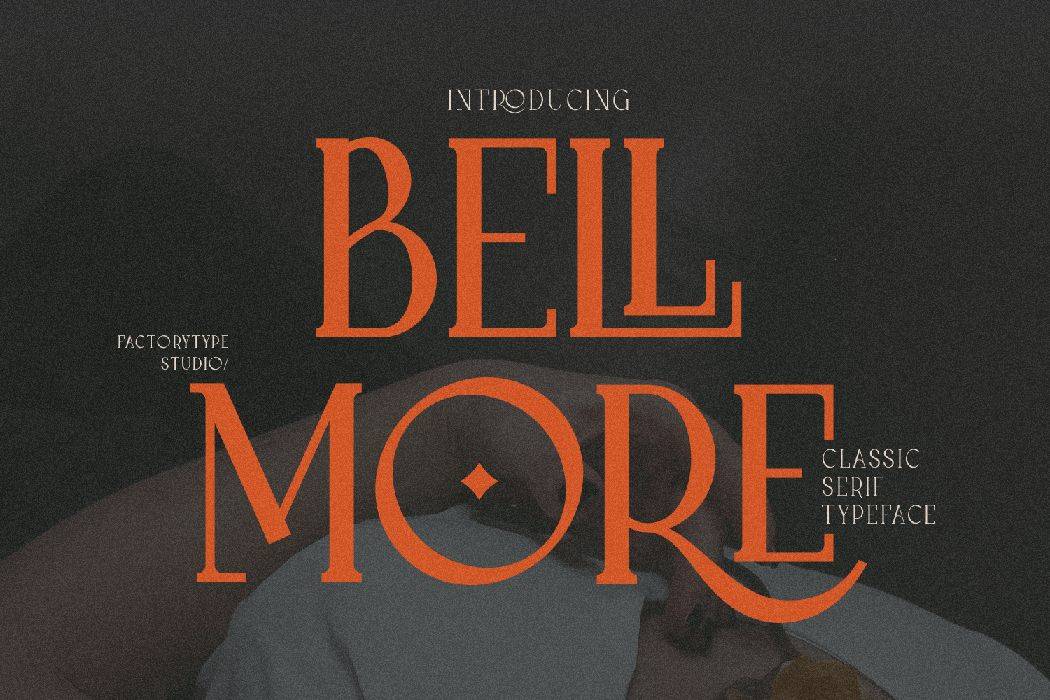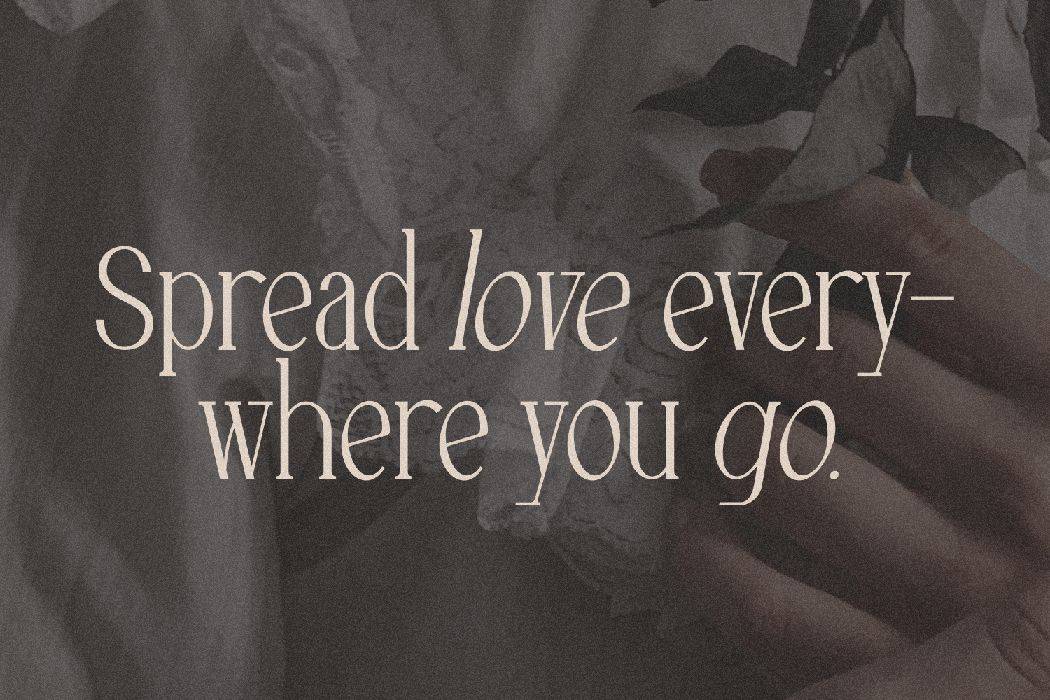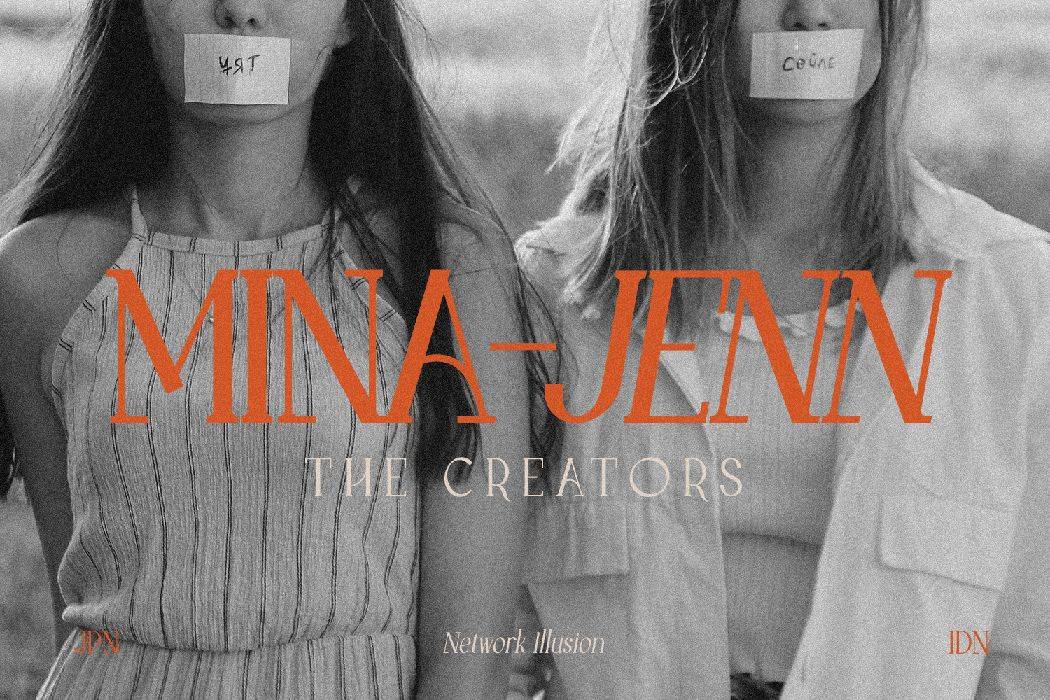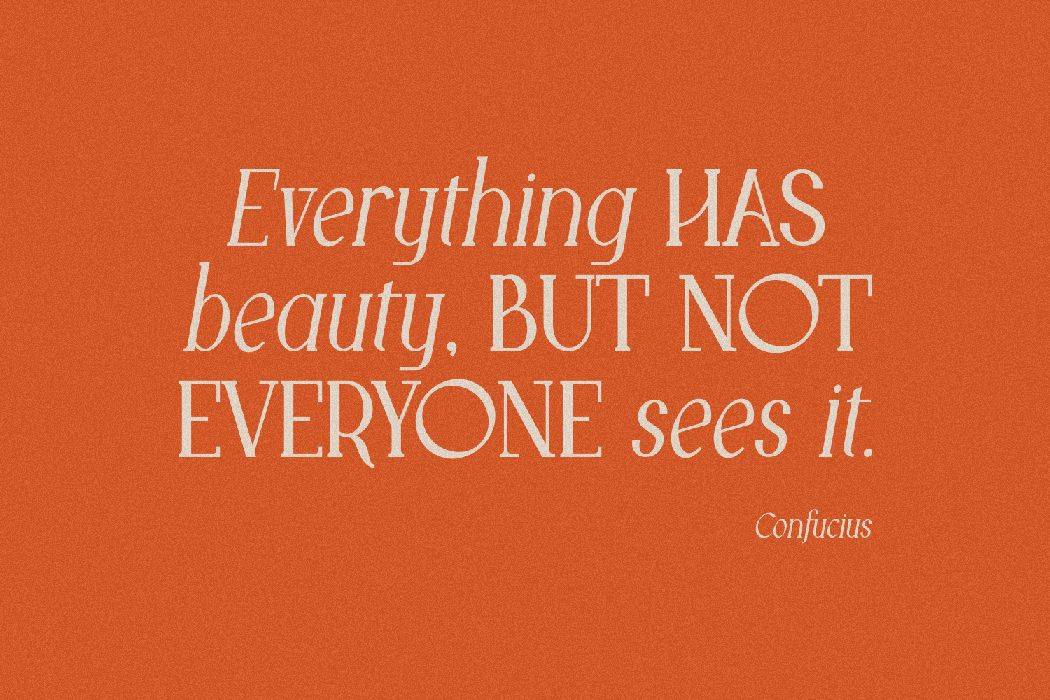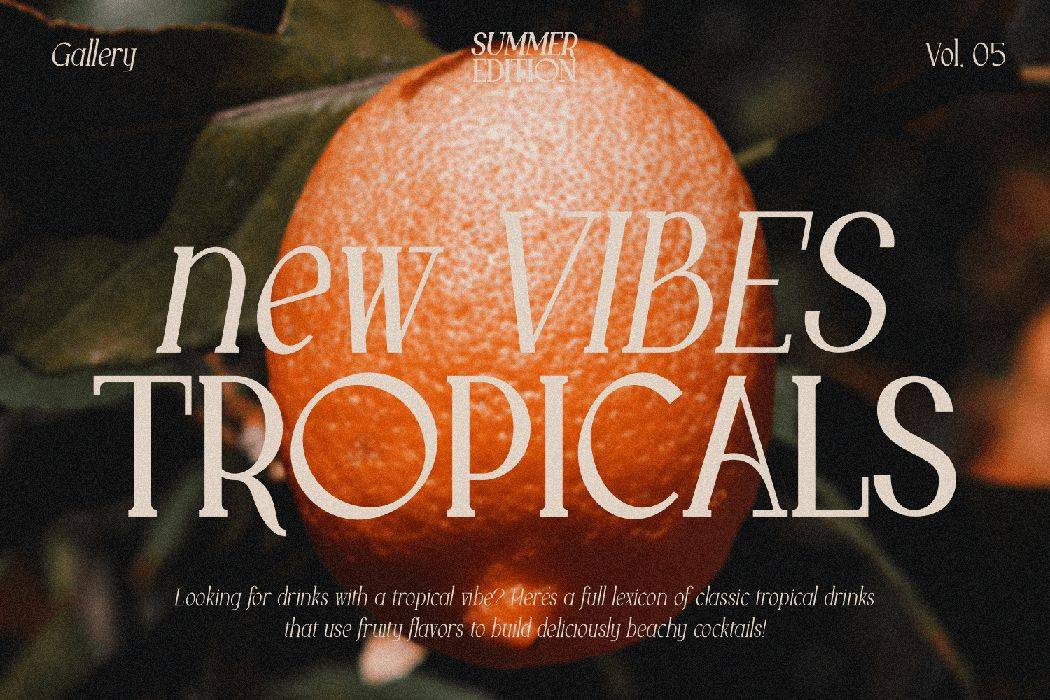
Bell More is an elegant serif font with a slender, tall design that combines high contrast strokes with fine, bracketed serifs. Its narrow letterforms and distinctive shapes, such as the single-story 'a' and the curvy tail on the 'Q', give it a refined, sophisticated character ideal for luxury branding, editorial headlines, and stylish invitations. This font’s graceful and delicate appearance makes it perfect for projects seeking a modern yet classic aesthetic with a touch of artistic flair.
Bell More Font
About Bell More Font